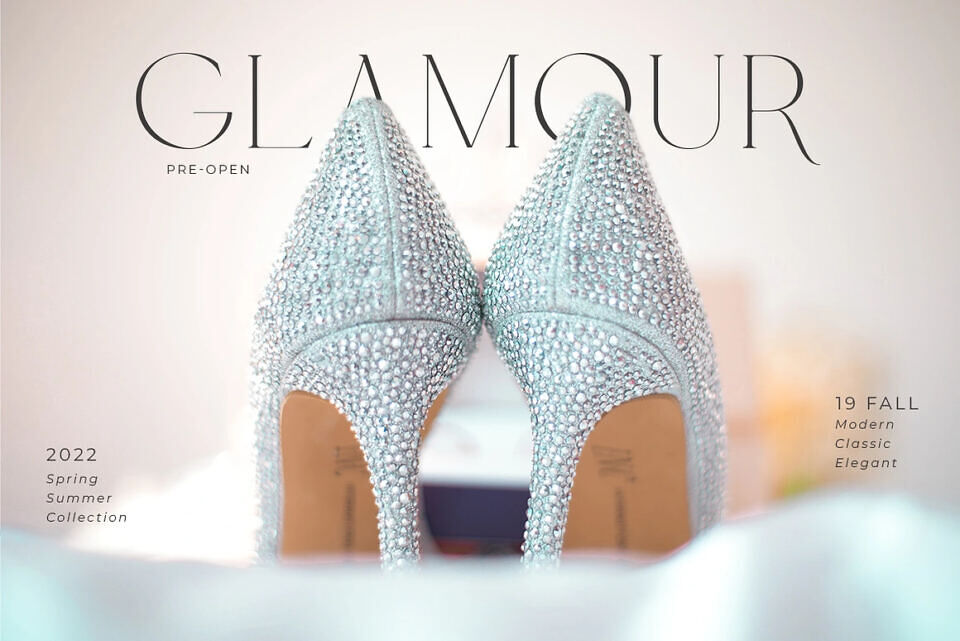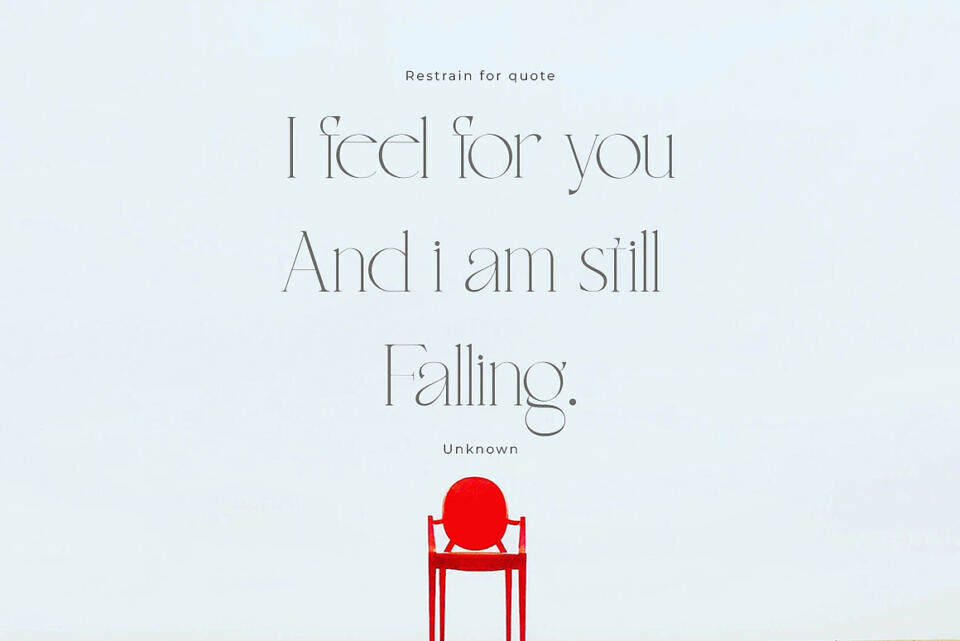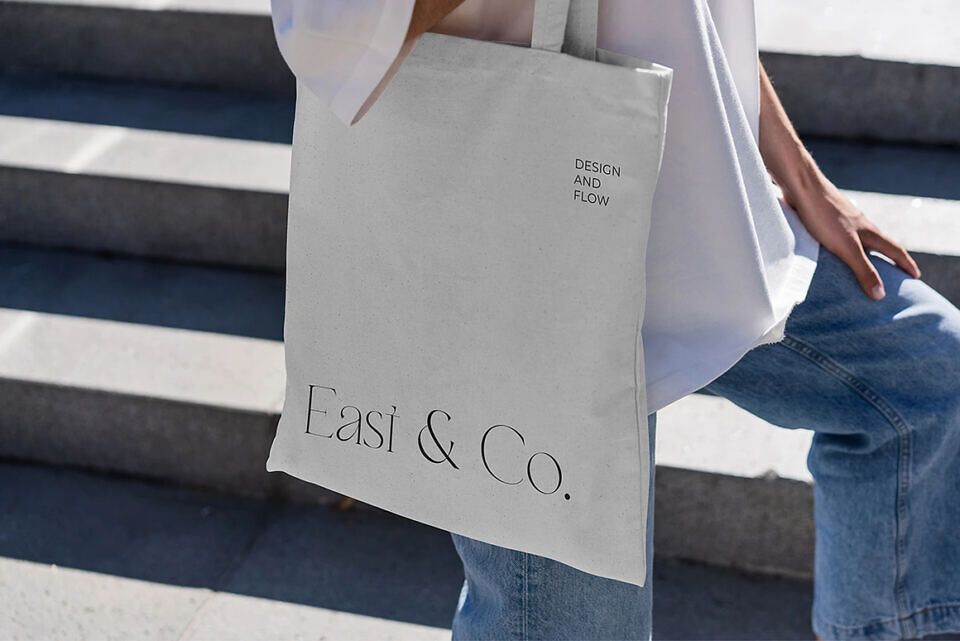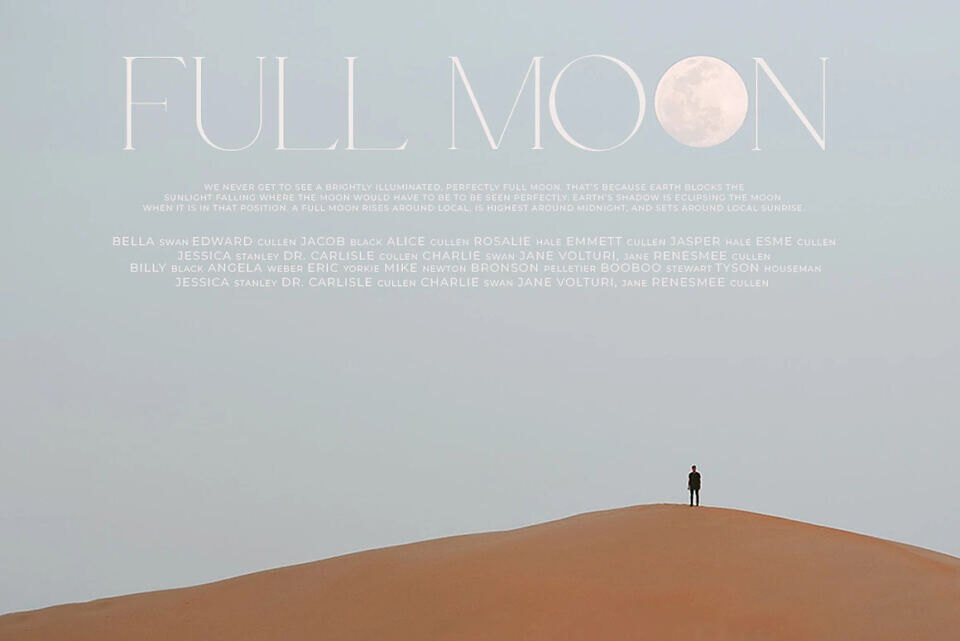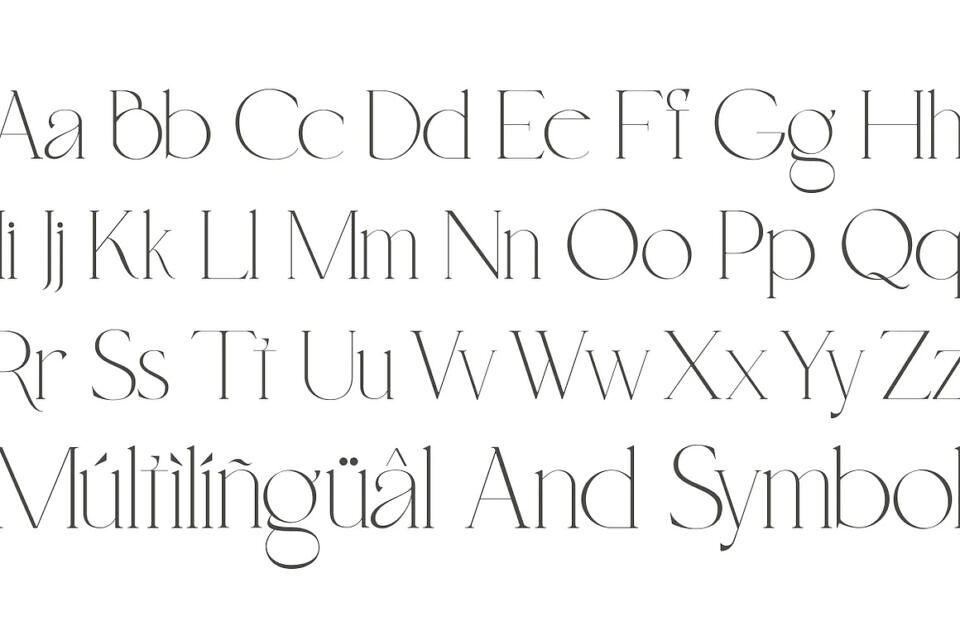
Restrain is a modern and stylish serif font. It looks stunning on wedding invitations, thank you cards, quotes, greeting cards, logos, business cards, and every other design which needs a handwritten touch. This font is PUA encoded which means you can access all the glyphs and ligatures with ease!